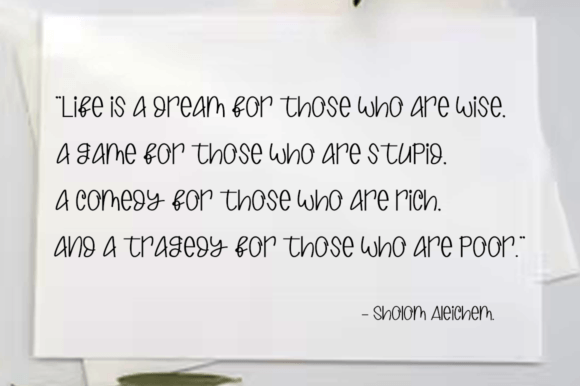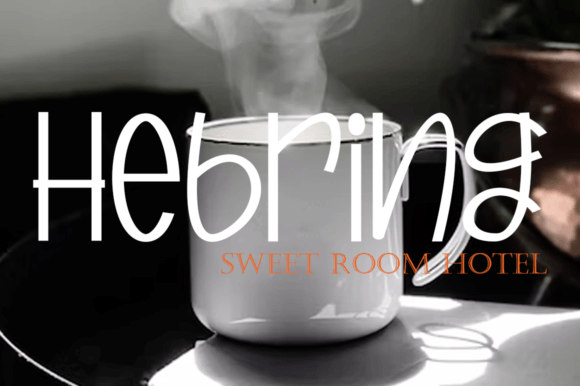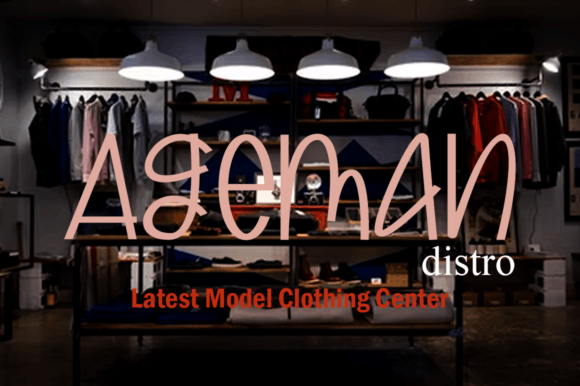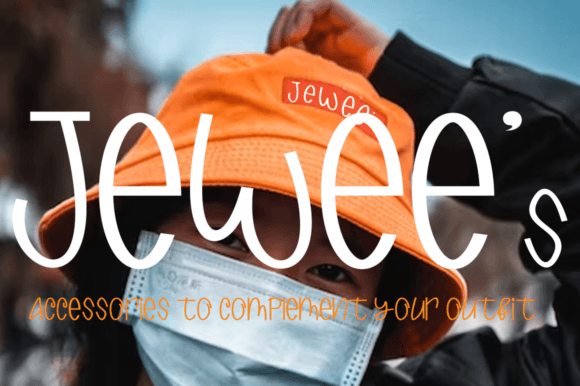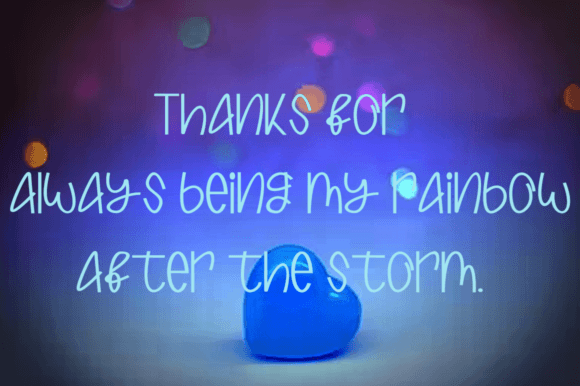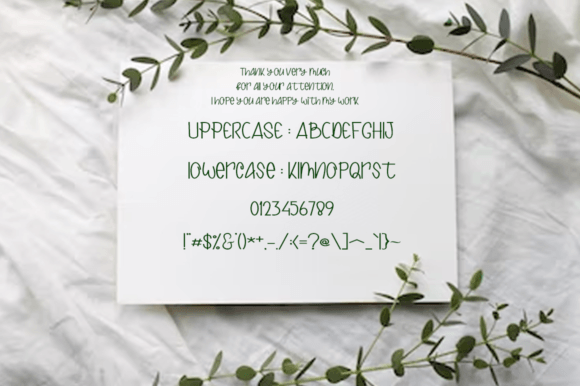
Introduction to Klepon Font
Have you ever stumbled upon a font that makes your creative project feel like a breath of fresh air? That’s exactly what happened to me when I discovered the charming Klepon Font. Its playful, handwritten style is like a warm hug for your designs, adding a touch of casual modern calligraphy that’s hard to resist.
As a designer, you’re always on the lookout for that special something to elevate your work. The Klepon Font is a game-changer, offering a high-quality design resource that’s perfect for branding, logos, posters, quotes, fashion, magazines, and more. Whether you’re working on a free download or a high-end project, this font is sure to bring a smile to your clients’ faces.
Key Features of Klepon Font
- Unique, hand-drawn style with a transparent background, perfect for adding a personal touch to designs.
- Includes 60+ glyphs, making it suitable for a wide range of creative applications.
- Perfect for designers, artists, and creatives seeking a distinctive and high-quality font for their projects.
Honest Review: Klepon Font
One of the things that I appreciate most about the Klepon Font is its versatility. It’s perfect for both digital and print designs, and it looks great on a transparent background. This makes it a valuable resource for designers who need a reliable font that can be used across different mediums.
- High-quality font that’s perfect for professional use
- Perfect for digital and print designs
- The font may not be suitable for very large or complex designs
Overall, I’m really impressed with the Klepon Font. It’s a high-quality resource that’s perfect for designers who need a reliable font for their creative projects. While it may have some limitations, I think it’s well worth checking out.
Klepon Font
Tips for getting the most out of the Klepon Font include experimenting with different font sizes, styles, and colors to achieve a unique look for your project.
Common use cases for the Klepon Font include creating invitations, posters, and social media graphics. Its high-quality design makes it suitable for a wide range of creative projects.